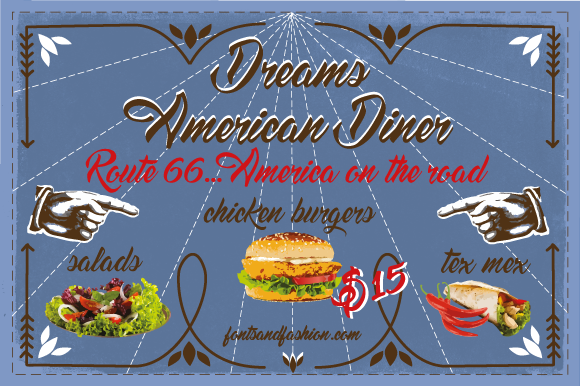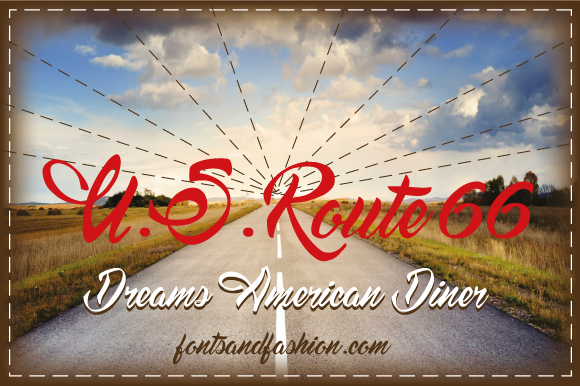
Dreams American Diner Font
db-ku.com - Script & Handwritten -- Dreams American Diner is a beautiful, well balanced and vintage styled script font. It is defined by smooth curves and is perfect for fashion branding or editorial designs. Add it confidently to your projects, and you will love the results.